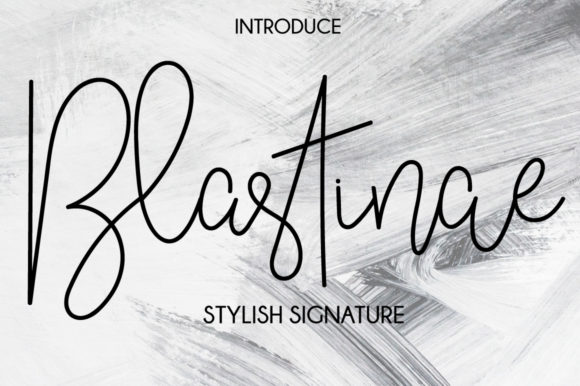
The Ultimate Guide to Blastinae Font: Adding a Playful Touch to Your Designs
I’ll never forget the time I was working on a project for a children’s party invitation. I had the design concept all sorted out, but I was stuck on finding the perfect font. I wanted something that would capture the playful and fun vibe of the party, but everything I tried seemed either too boring or too over-the-top. That’s when I stumbled upon Blastinae Font, and it was love at first sight! 💕
Blastinae Font is a fun and authentic handwritten font with a playful feel that instantly adds a dynamic charm to any design project. In this article, I’ll share my honest review of the font, provide a practical guide on how to use it on different platforms, and explore similar fonts that you might enjoy.
My Honest Review of Blastinae Font
- ✅ Unique and authentic handwritten feel that adds a personal touch to your designs
- ✅ Versatile and can be used for a wide range of design projects, from invitations to social media graphics
- ✅ Easy to pair with other fonts to create a cohesive look
- ⚠️ Some letters may appear a bit inconsistent in terms of size and spacing, which can be a bit tricky to work with
- ⚠️ Limited availability of OpenType features, which may limit advanced typography options
The Story Behind Blastinae Font
Blastinae Font was designed by a team of creatives who wanted to create a font that would capture the playful and fun vibe of everyday life. The font is inspired by the imperfections and quirks of handwritten text, making it perfect for designs that require a personal touch.
Q: Is Blastinae Font suitable for body text?
A: While Blastinae Font is highly legible, it’s best suited for headings, titles, or short paragraphs. For longer body text, you may want to consider a more traditional font.
Q: Does Blastinae Font come with OpenType features?
A: Blastinae Font has limited OpenType features, but it does come with a range of glyphs and stylistic alternates to add visual interest to your text.